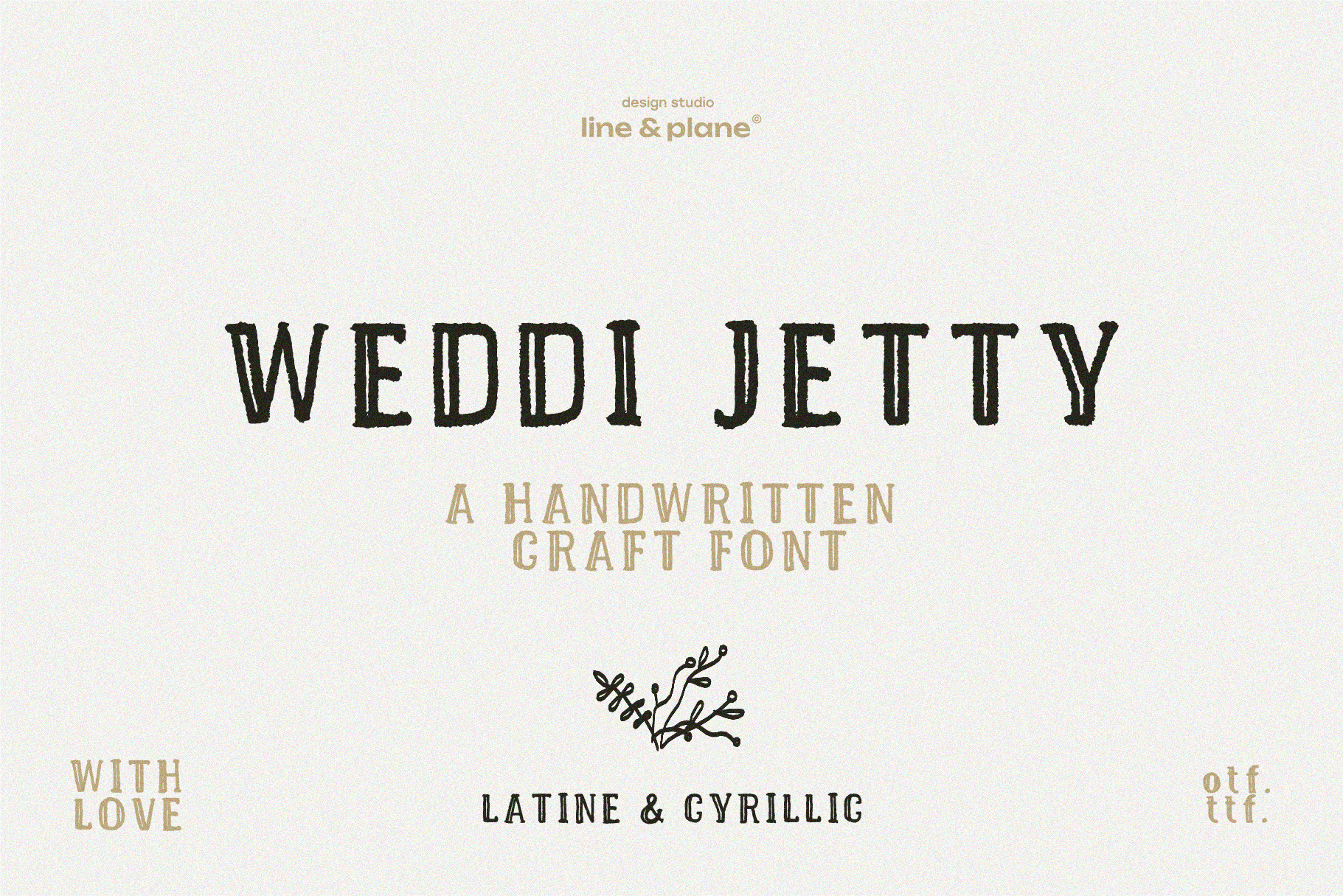
Weddi Jeddy - Latine & Cyrillic Font
Weddi Jeddy - Latine & Cyrillic Font is inspired by love in the air and marriages, hopefully it will be useful in your wedding invitations or anywhere else, identity, cartoons, prints or web.
- Cyrillic and Latin - (333) symbols;
- Glyphs (Uppercase, Lowercase, Number, Punctuation & other); suitable for many languages;